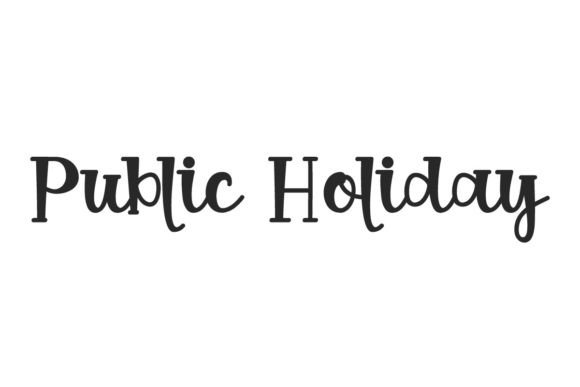
Introducing Public Holiday Font: A Playful Script That Captivates!
Welcome to the world of Public Holiday Font, a captivating display font family that exudes charm and personality. Inspired by cartoon writing, this font boasts distinctive script and serif lines that dance across the page, creating a visual delight that's sure to leave a lasting impression.
With its whimsical and enchanting aura, Public Holiday Font is the perfect choice for a wide range of creative projects, from blog headers and calendars to custom logos and quotes. Its versatility extends across industries, adding a touch of playful elegance to fashion, homeware, kids' stuff, photography, publishing, travel, and more.
- Delightful Script Typeface: Public Holiday Font's unique blend of script and serif lines gives it a playful and endearing character, making it a standout choice for creative projects.
- Extensive Character Set: This font family comes equipped with a full set of uppercase and lowercase basic characters, numbers, a wide range of punctuation and symbols, and multilingual characters, ensuring compatibility with various languages.
- Versatile for Any Industry: The charm of Public Holiday Font transcends specific industries. It effortlessly enhances blog headers, calendars, logos, custom designs, signage, and any project that demands a touch of whimsical script.
Indulge in the Enchantment of Public Holiday Font!
Step into the realm of imagination and let Public Holiday Font be your creative ally. With its playful script and captivating charm, this font family breathes life into your projects, transforming them into visually stunning masterpieces.